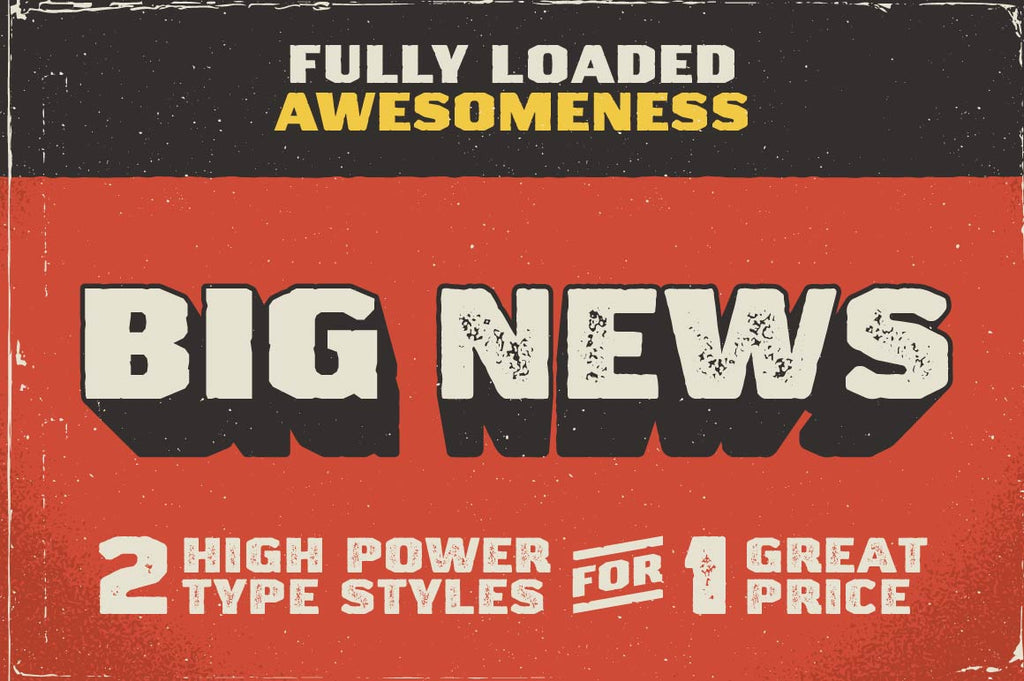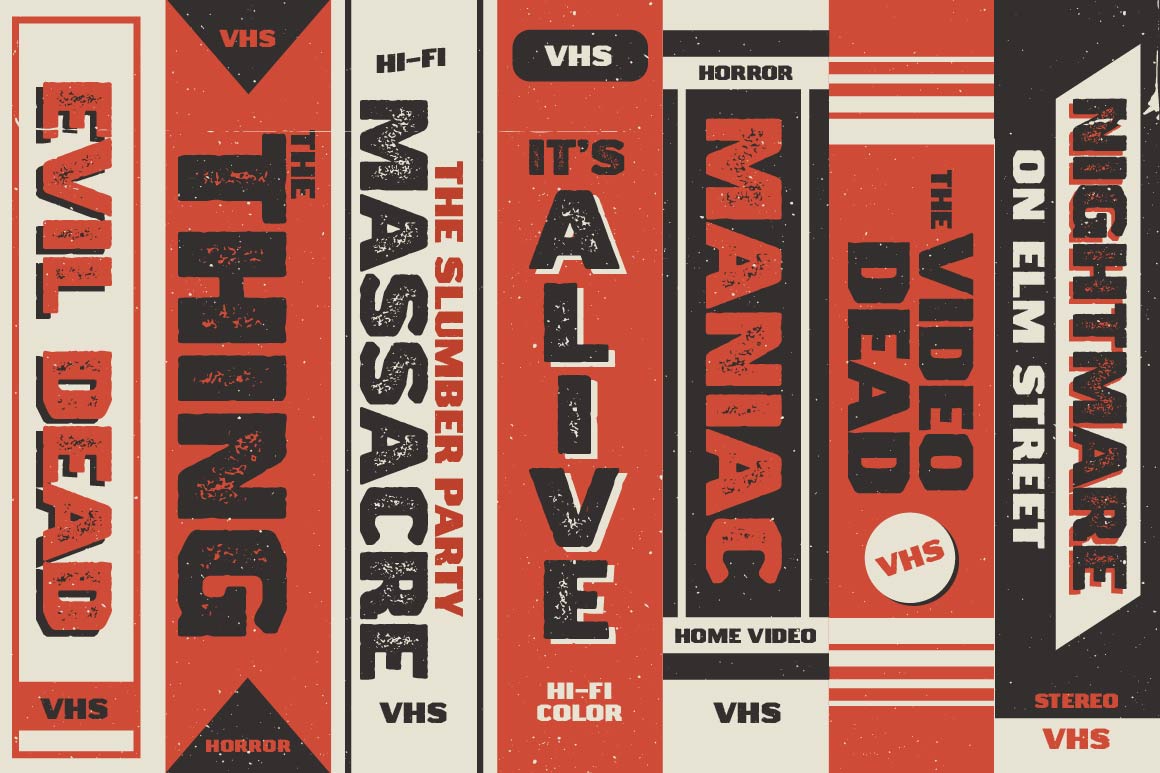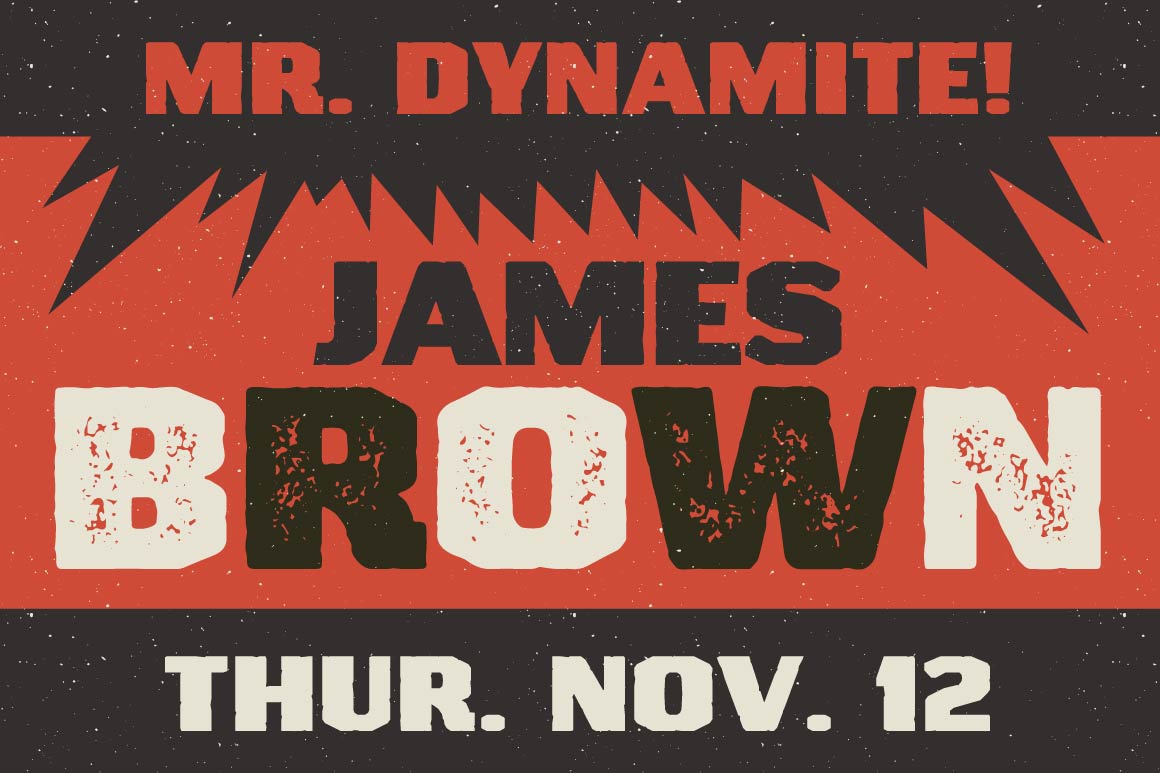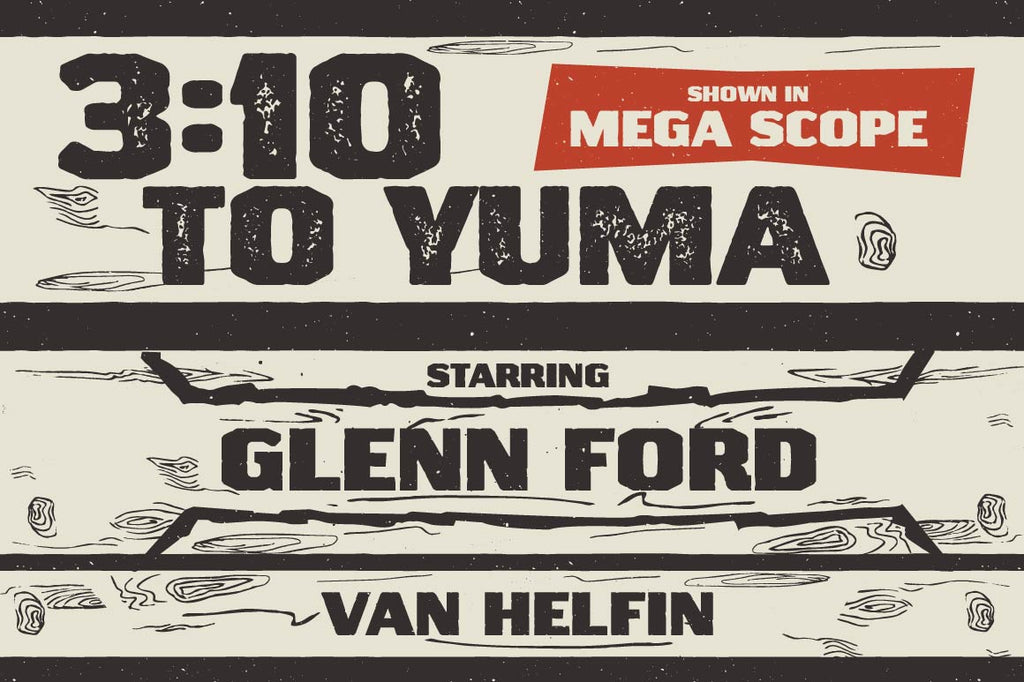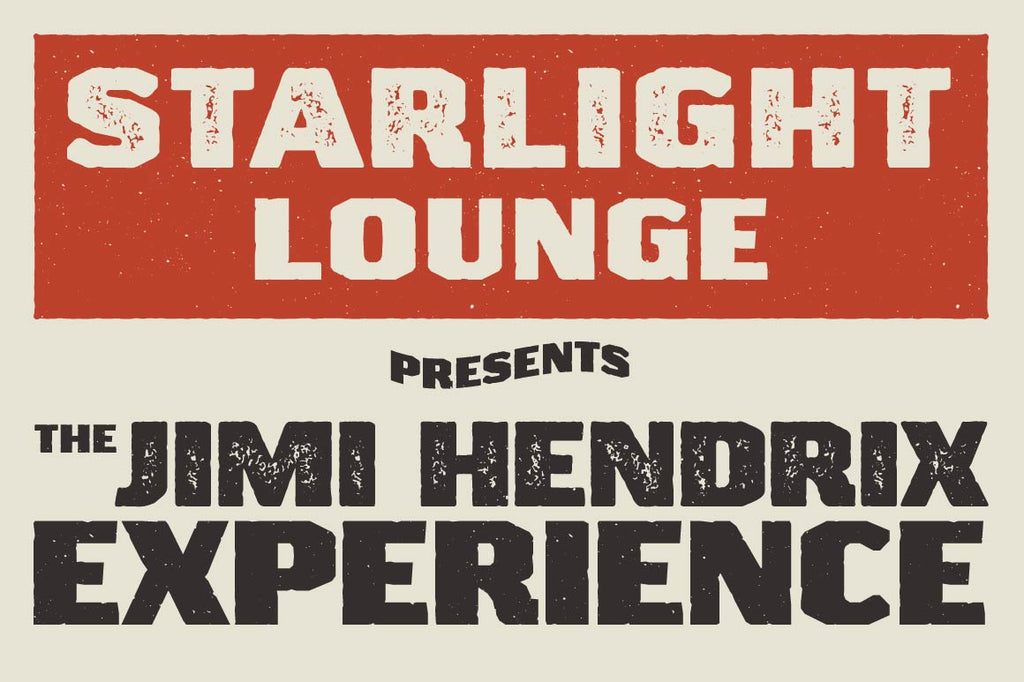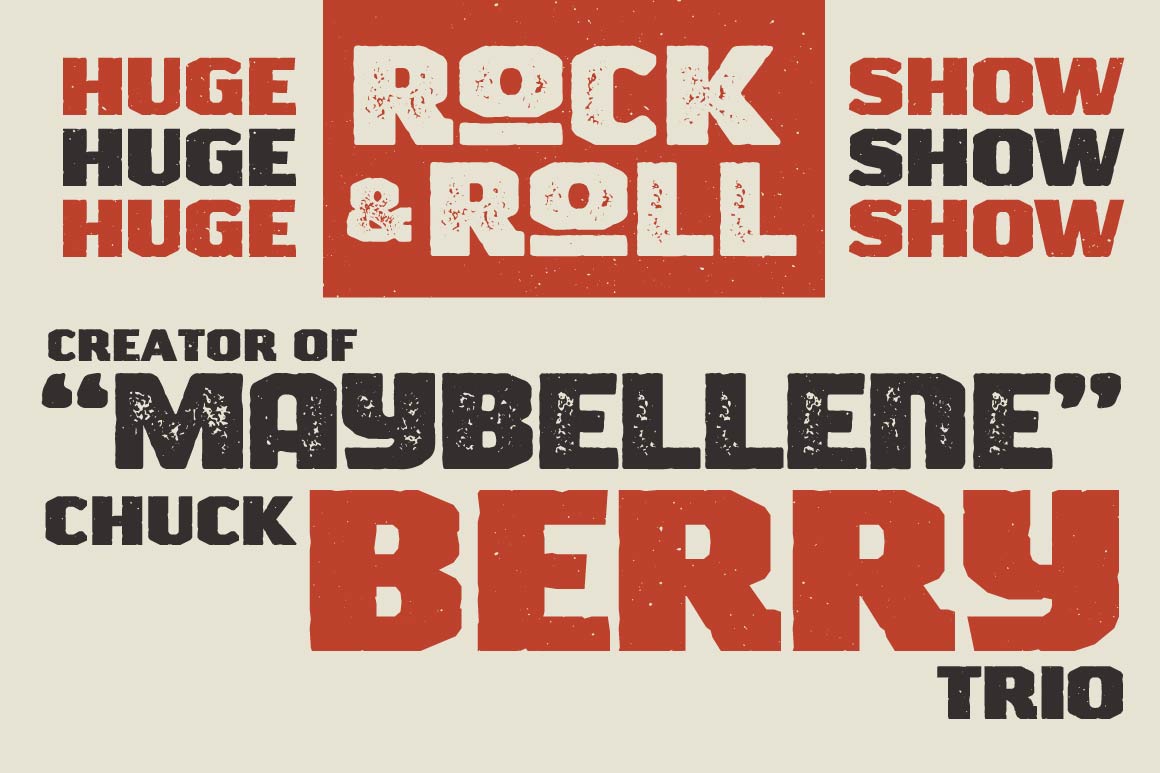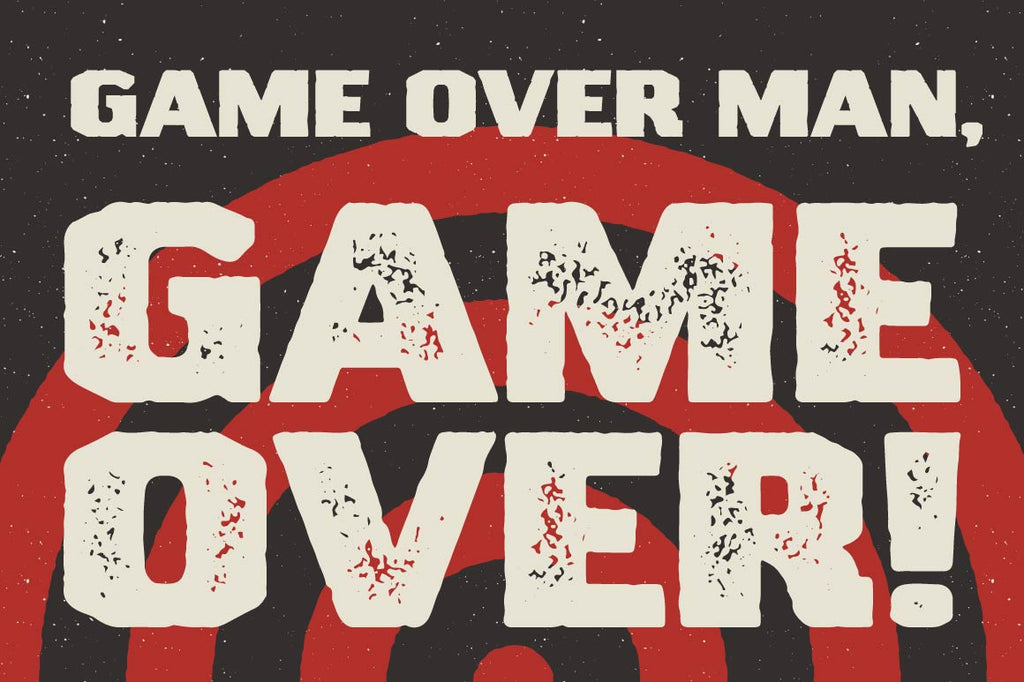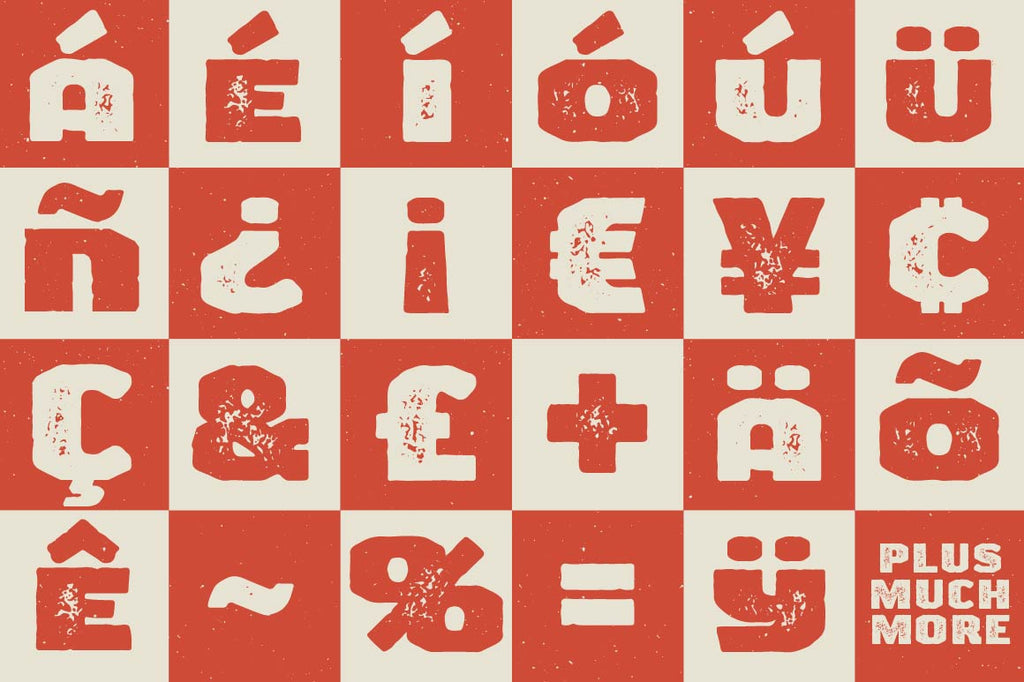
Big News I & II : A Hollerin’ Typeface
Looking for some type that has a strong and rugged voice? Here it is. Big News features 2 options—clean-ish and distressed. This type can take a beating and keep on working for you. It even has the scars to prove it. For just a measly $30 you can start smacking people's eyeballs around with your designs. "Hey you! Look at me, meatbag!" is what your designs will be saying if you use Big News. Come on. Do this. You won't regret it.